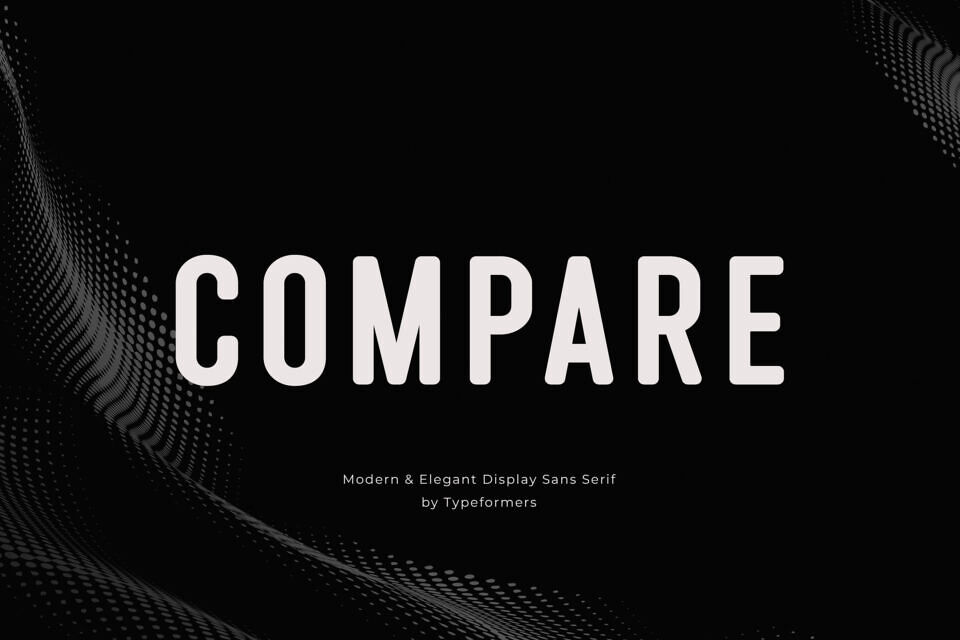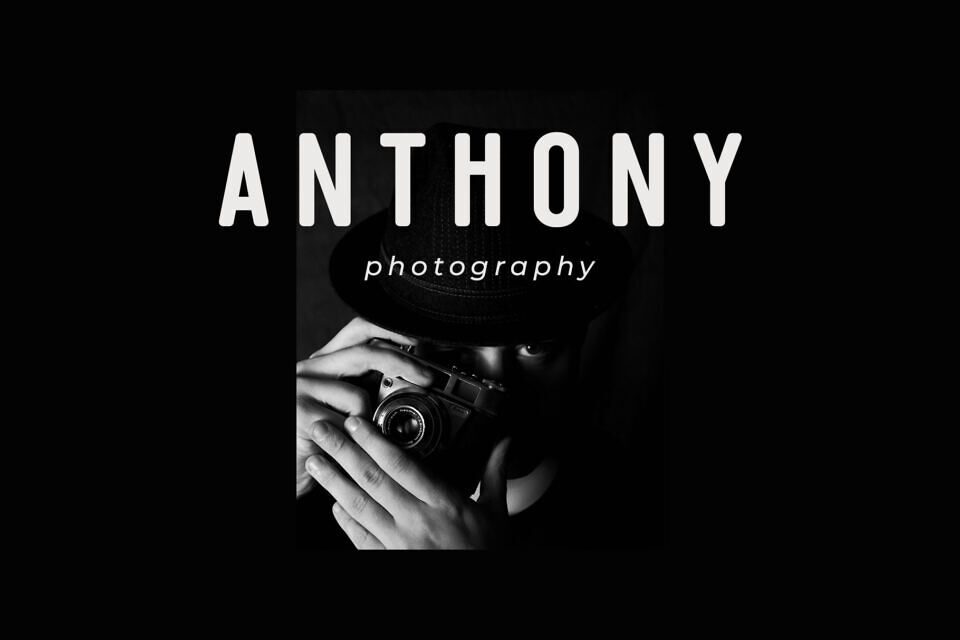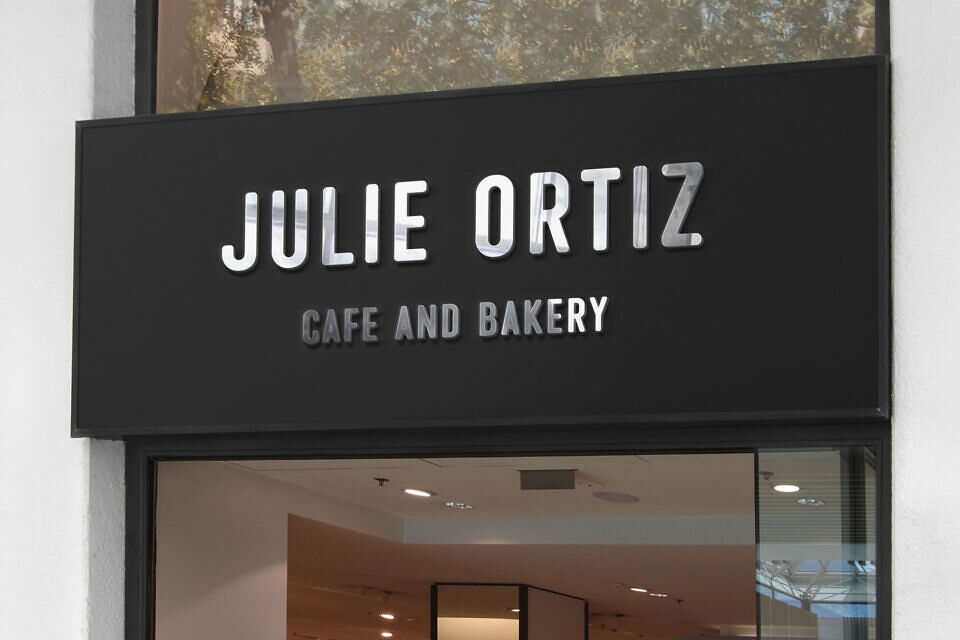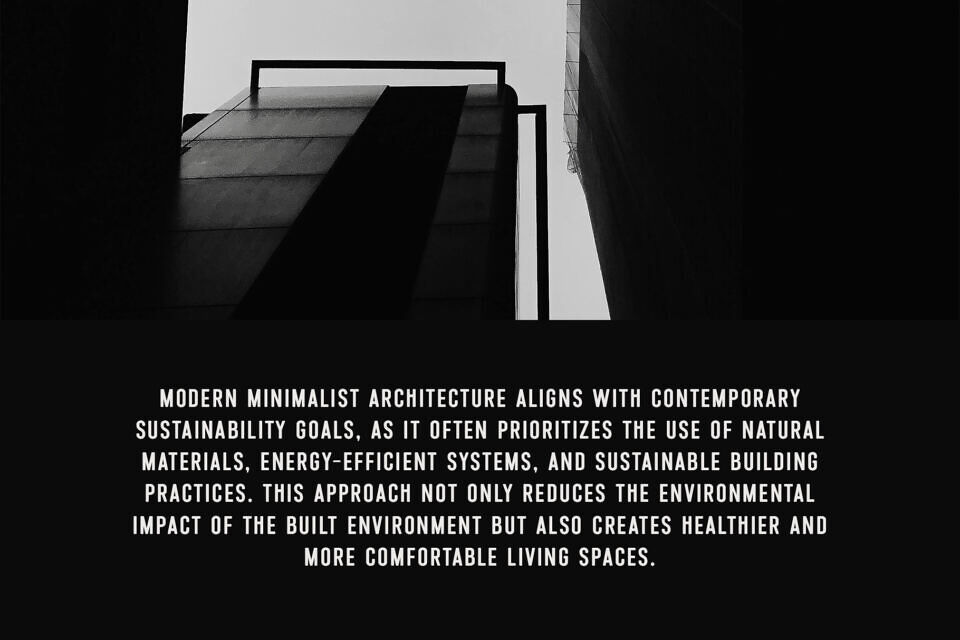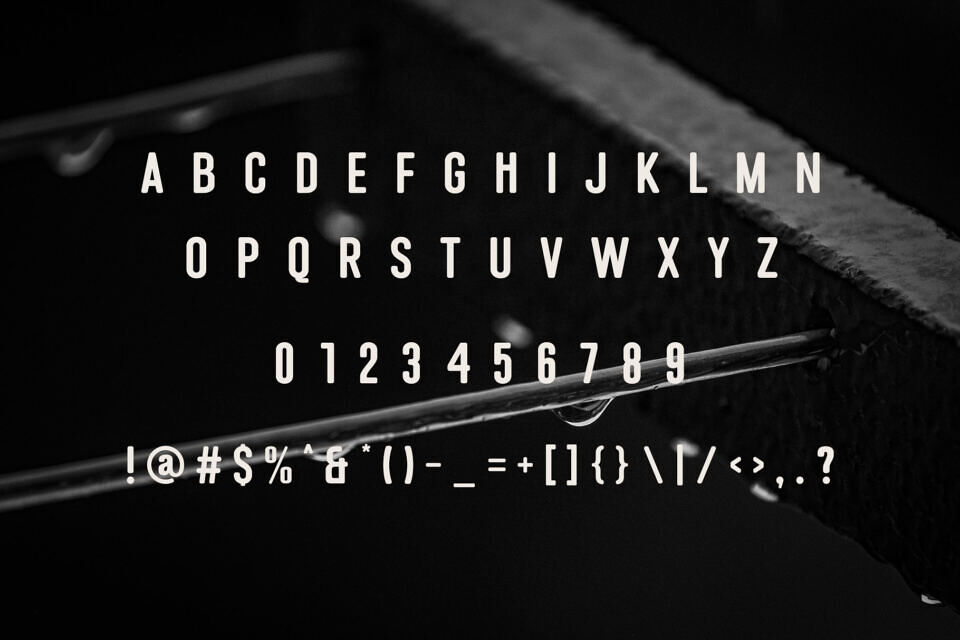
Compare Font
Compare is a clean, contemporary sans-serif typeface designed for high legibility and versatile branding. Its geometric foundations are balanced by smooth curves, creating a neutral yet sophisticated aesthetic that works beautifully in both headlines and dense body copy.
With a balanced x-height and precise spacing, it offers excellent readability across digital screens and print media, making it an excellent choice for modern corporate identities, editorial layouts, and user interfaces.
Designed by: Typeformers